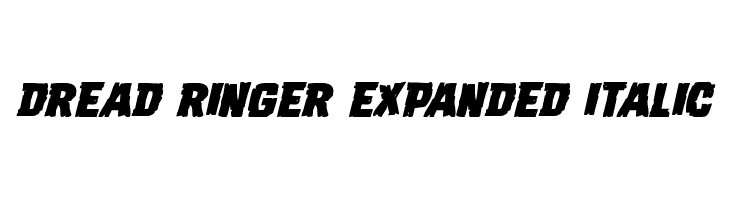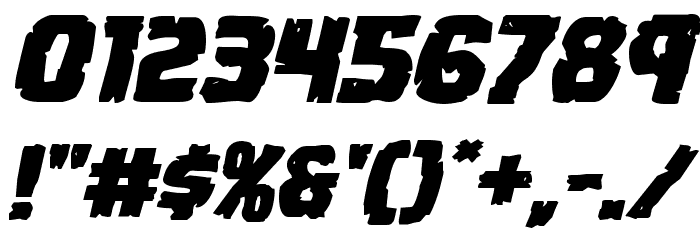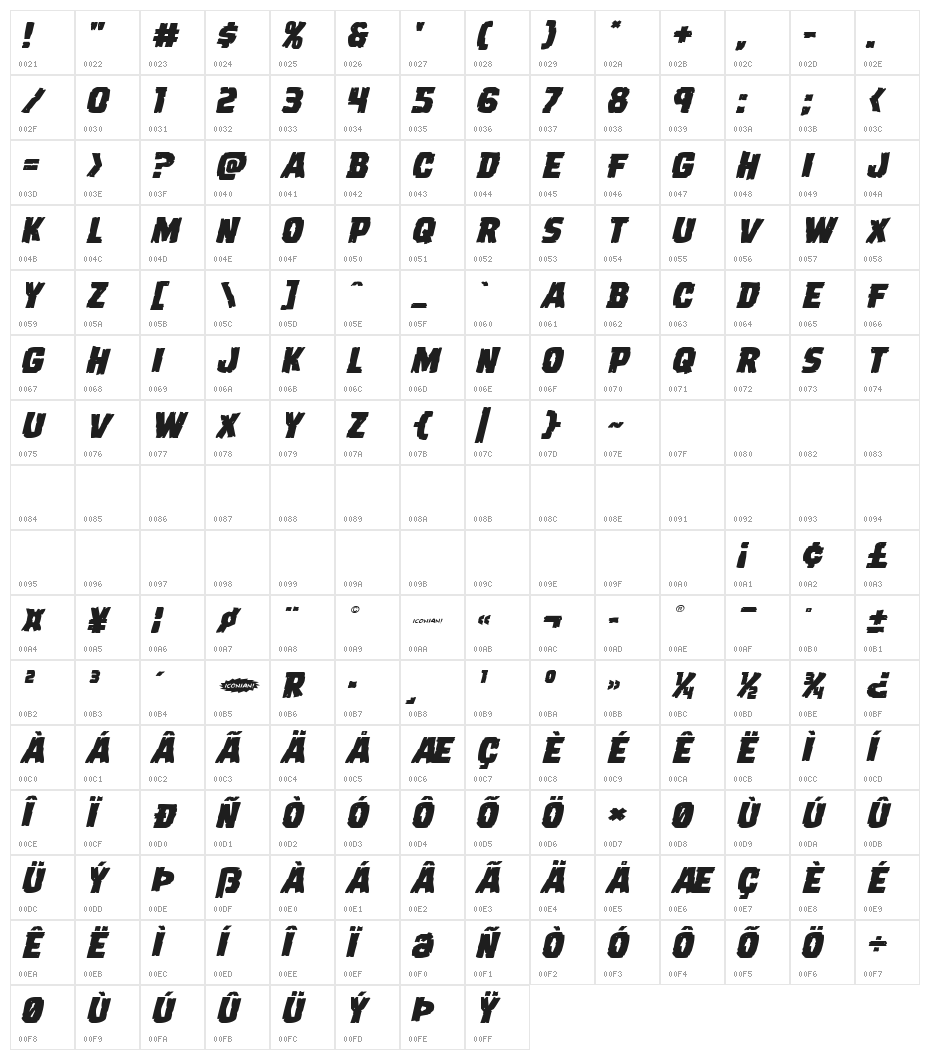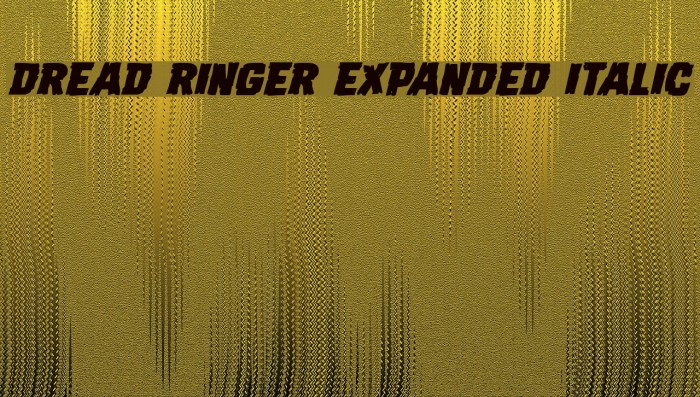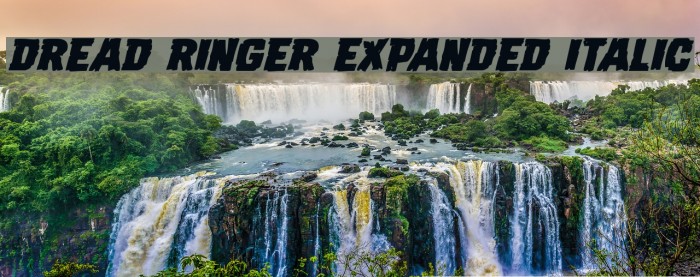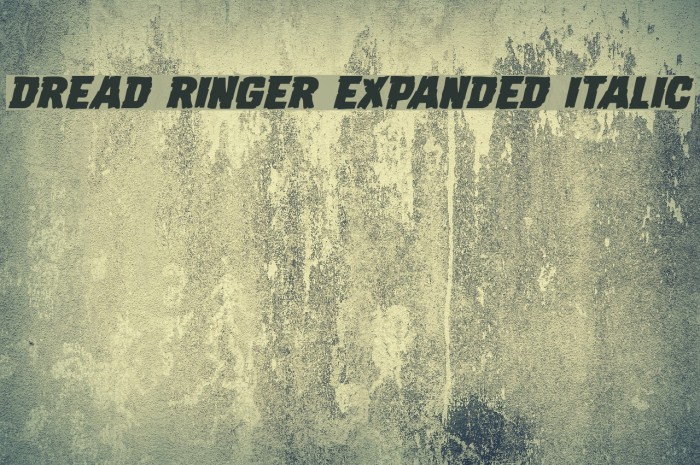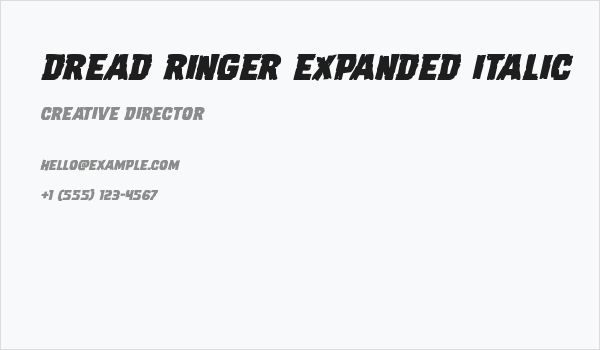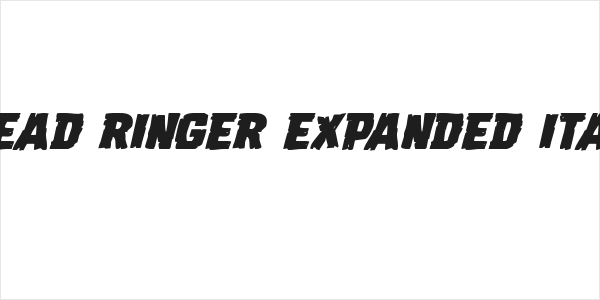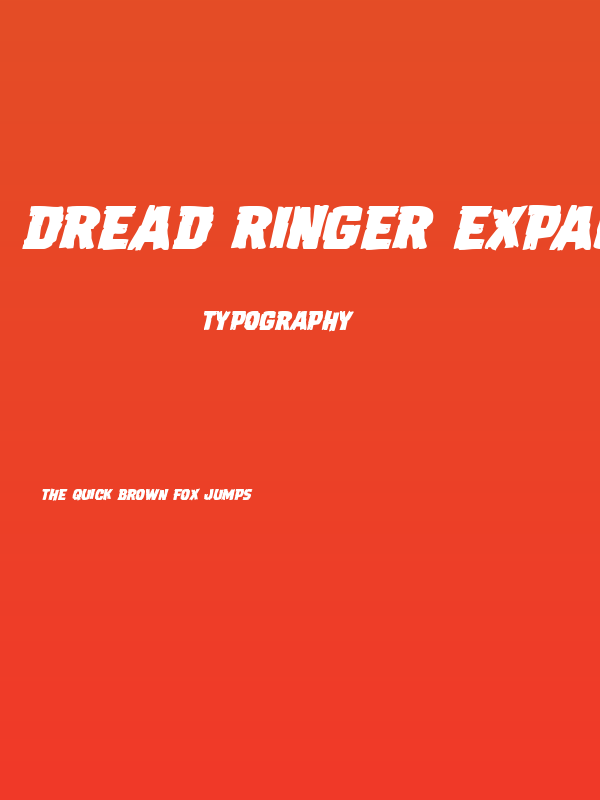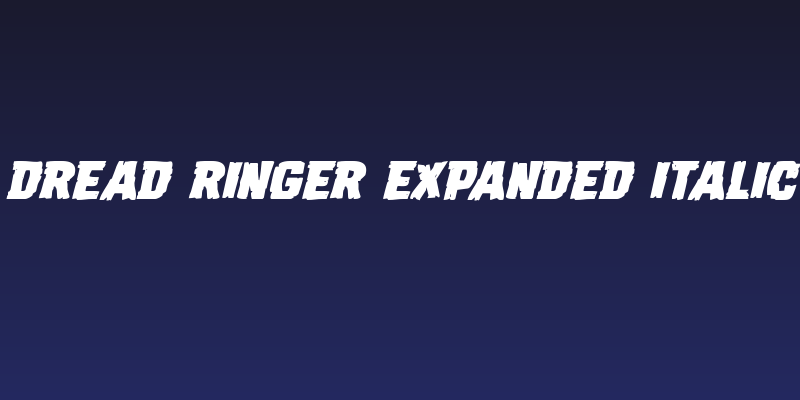
Dread Ringer Expanded Italic Font
Dread Ringer Expanded Italic Description
This font features a bold and dynamic style with a distinctly italicized slant, giving it a sense of motion and energy. The characters are heavily weighted, with thick strokes that convey strength and impact. The expanded width of the letters adds to its commanding presence, making it ideal for attention-grabbing headlines or titles. The font's design includes sharp angles and a slightly rough texture, adding a rugged and edgy feel. Its unique style is both modern and slightly aggressive, suitable for projects that require a bold statement.
| Overall Style | Modern, Edgy |
| Proposed Projects | Ideal for use in posters, logos, sports branding, and any project needing a bold, impactful typeface. |